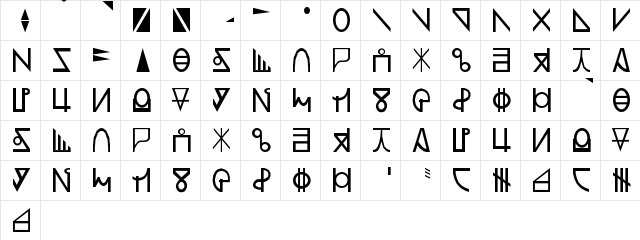
Interkosmo Regular
Design Context for Interkosmo Typeface
Interkosmo offers clean, dependable letterforms without strong stylistic allegiance, making it a practical choice for designers who need flexibility.